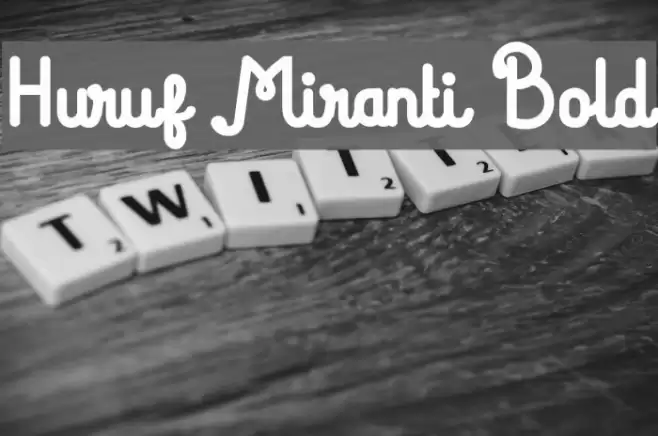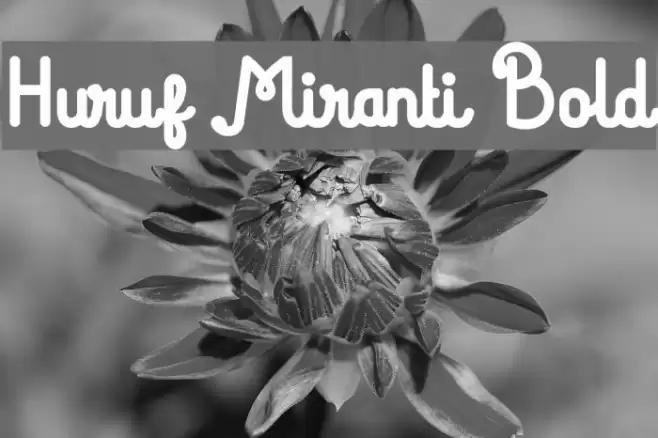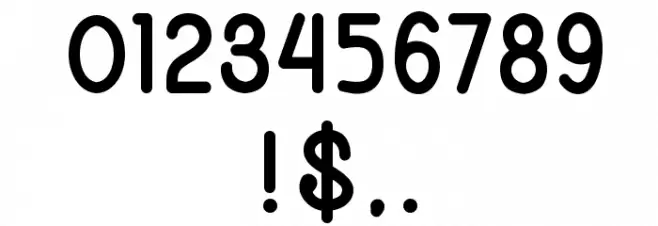
Huruf Miranti Bold Font
Huruf Miranti Bold Description
This font features a playful and bold script style with a unique blend of rounded and connected letterforms. The uppercase letters are distinct with a whimsical touch, while the lowercase letters maintain a smooth, flowing appearance. The numbers are consistent with the overall style, offering a cohesive look. Special characters are creatively integrated, adding to the font's charm. The font's boldness makes it stand out, yet its rounded edges provide a friendly and approachable feel. This combination of characteristics makes it suitable for a variety of creative applications.
A bold, playful script font with rounded, connected letterforms from Uncategorized fonts.
- Proposed Projects: Ideal for children's books, playful branding, greeting cards, and creative posters.
- Overall Style: Playful